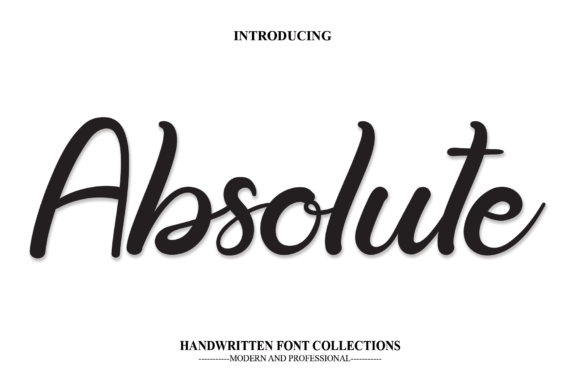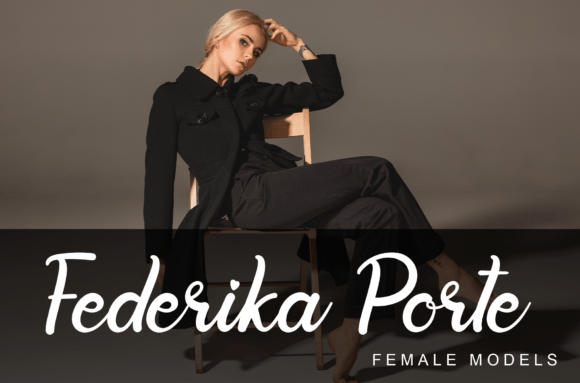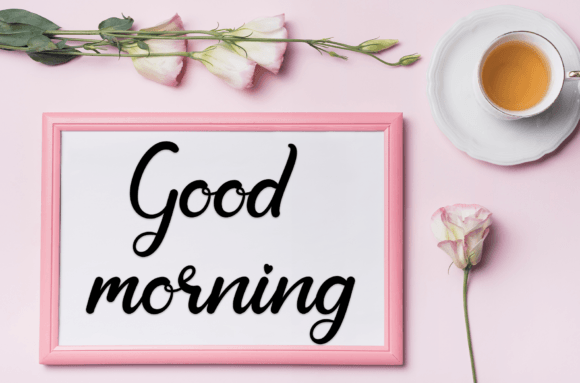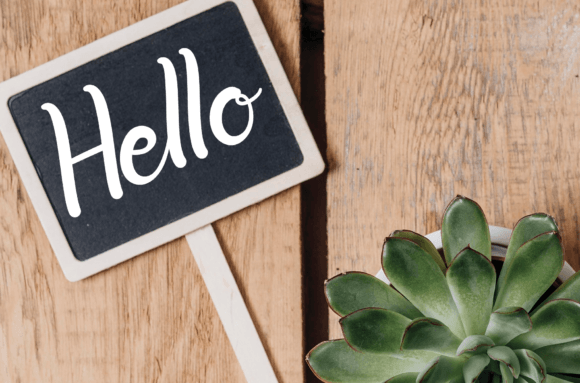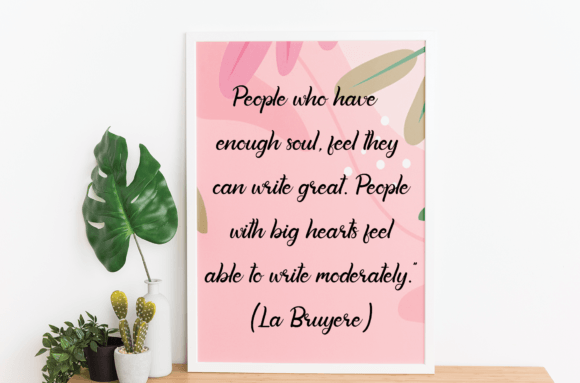
Bring Joy to Your Designs with Absolute Handwritten Font
The Absolute Handwritten Font is a charming and playful typeface designed to bring warmth and friendliness to your creative work. With its smooth, casual strokes and handcrafted appeal, Absolute is ideal for adding a delightful human touch to a variety of design projects.
Whether you’re crafting a romantic wedding invitation or a fun greeting card, this font helps you communicate with sincerity and charm.
Perfect for Invitations, Cards, and Creative Projects
Absolute shines in a range of design scenarios. Its light-hearted and affectionate character makes it an excellent choice for wedding invitations, thank-you cards, birthday greetings, and more. The font’s natural flow adds a sense of intimacy, which makes your message feel more personal and heartfelt.
In addition, it works beautifully for branding projects, product packaging, and handmade-style graphics. Absolute helps convey authenticity, making it perfect for lifestyle brands, DIY projects, and casual marketing visuals.
Designed for Both Digital and Print Applications
Another major advantage of the Absolute Font is its flexibility across media types. Whether you’re creating for print or digital formats, Absolute maintains a consistent, clean appearance. From Instagram quotes to printed stationery, this font adapts effortlessly while retaining its playful spirit.
To create visual balance, consider pairing Absolute with a simple sans-serif or serif font. This combination enhances readability and adds polish to your overall design layout.
Playful Style Meets Professional Quality
What sets Absolute Handwritten Font apart is its perfect blend of casual charm and polished design. The letters are carefully crafted to mimic genuine handwriting while ensuring legibility and aesthetic consistency. This makes Absolute suitable for both casual and semi-formal settings.
Its gentle curves and slightly irregular shapes make your text feel more lively and expressive, helping you forge an emotional connection with your audience.
Why Designers Love Absolute Font
Here’s why Absolute is quickly becoming a favorite among creative professionals:
Sweet and friendly handwritten look
Ideal for weddings, cards, packaging, and branding
Works well in both print and digital environments
Brings personality and warmth to any design
Easy to pair with other fonts for elegant results
Add a Lovely Touch with Absolute
In summary, the Absolute Handwritten Font is a fun, relaxed, and sweet script that infuses personality and emotion into any design. Whether you’re expressing love, gratitude, or joy, Absolute helps your words stand out with charm and clarity.
Let Absolute be your go-to font for creating heartfelt and memorable design experiences.